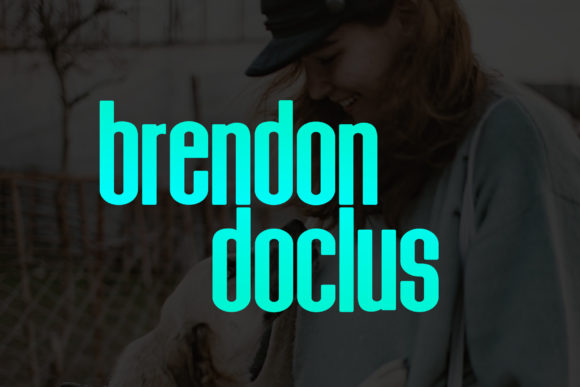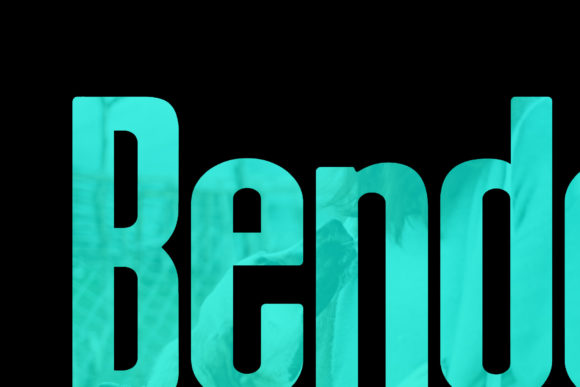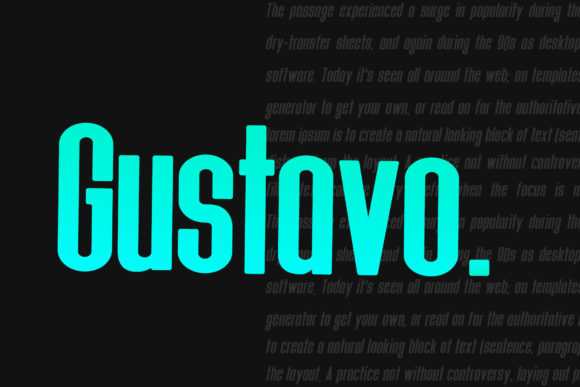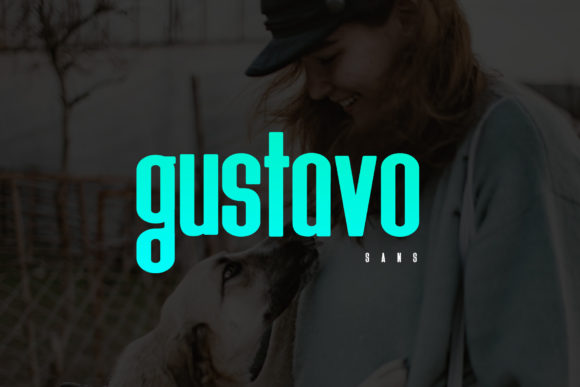
Gustavo Font: Elevate Your Designs with a Bold and Classic Sans Serif
Are you a designer or crafter looking for a font that can add a touch of sophistication and realism to your ideas? Look no further than Gustavo Font. This bold and classic sans serif font is perfect for creating spectacular designs that capture attention and leave a lasting impression.
The Characteristics of Gustavo Font
Gustavo Font is a sans serif font, which means it doesn’t have the small lines or flourishes at the end of the letters. This gives it a clean and modern look that’s perfect for designs that need to be sleek and professional. The font is also bold, making it ideal for headlines, titles, and other applications where you want to make a statement.
One of the key benefits of Gustavo Font is its versatility. It can be used for a wide range of design projects, from branding and advertising to packaging and digital media. The font is highly legible, even at small sizes, making it perfect for body text as well as headlines.
Why Choose Gustavo Font?
So why should you choose Gustavo Font for your design projects? Here are just a few reasons:
- Bold and attention-grabbing: Gustavo Font is a bold font that’s designed to grab attention. It’s perfect for headlines, titles, and other applications where you want to make a statement.
- Classic and timeless: Despite its bold and modern look, Gustavo Font has a classic feel that’s timeless. It won’t go out of style anytime soon, making it a great investment for designers and crafters.
- Highly legible: Gustavo Font is highly legible, even at small sizes. This makes it perfect for body text as well as headlines.
- Versatile: Gustavo Font can be used for a wide range of design projects, from branding and advertising to packaging and digital media.
How to Use Gustavo Font in Your Designs
Using Gustavo Font in your designs is easy. Here are a few tips to get you started:
- Pair it with other fonts: Gustavo Font can be paired with other fonts to create a unique and interesting look. Try pairing it with a script font or a serif font for a contrasting look.
- Use it for headlines and titles: Gustavo Font is perfect for headlines and titles. Use it to grab attention and make a statement.
- Experiment with different colors: Gustavo Font looks great in a variety of colors. Experiment with different colors to find the one that works best for your design.
Tips and Tricks for Working with Gustavo Font
Here are a few tips and tricks for working with Gustavo Font:
- Use it consistently: To create a cohesive look, use Gustavo Font consistently throughout your design.
- Adjust the size and spacing: Experiment with different sizes and spacing to find the one that works best for your design.
- Add a personal touch: Don’t be afraid to add a personal touch to your design. Use Gustavo Font as a starting point and then add your own unique flair.
Gustavo Font is a bold and classic sans serif font that’s perfect for designers and crafters who want to create spectacular designs. Its versatility, legibility, and timeless look make it a great investment for any design project. Whether you’re creating a brand identity, advertising campaign, or packaging design, Gustavo Font is a great choice. So why not give it a try and see the difference it can make in your designs?